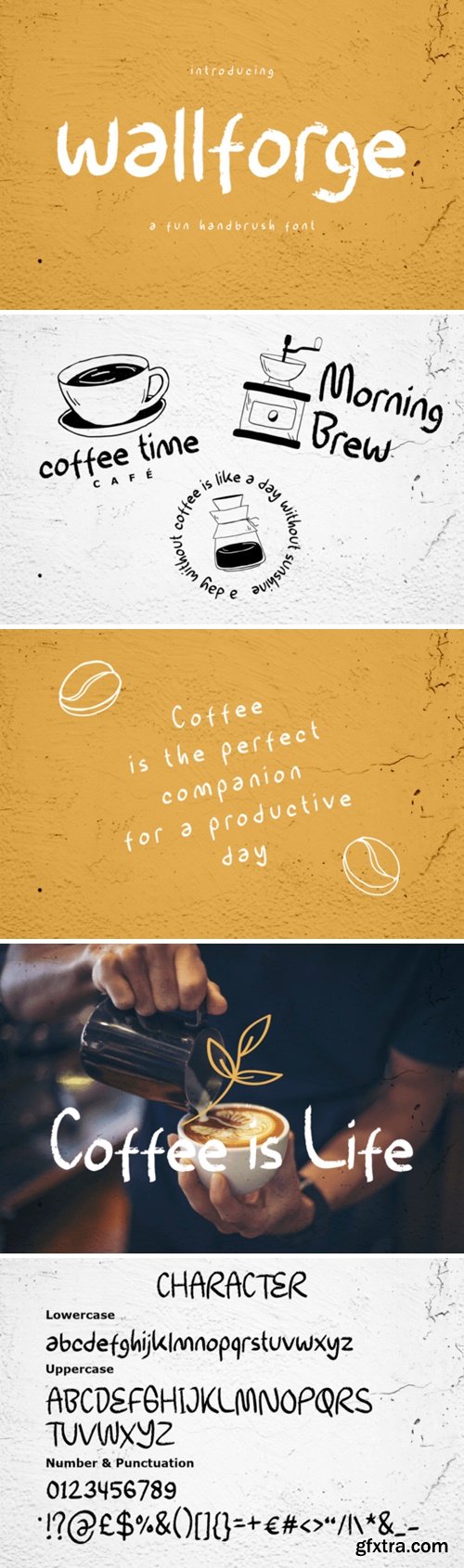
Perfect for everything from invitation cards to bold titles on book covers or posters, this versatile display font has all you need to make your designs stand out. Its cute yet fancy freestyle lettering is like coffee for your creative soul – energizing and tasty! Use Wallforge for movie titles or magazine layouts; its charming imperfections are sure to captivate your audience. Embrace the delightful freestyle monoline appearance of Wallforge and let your designs sing with personality!